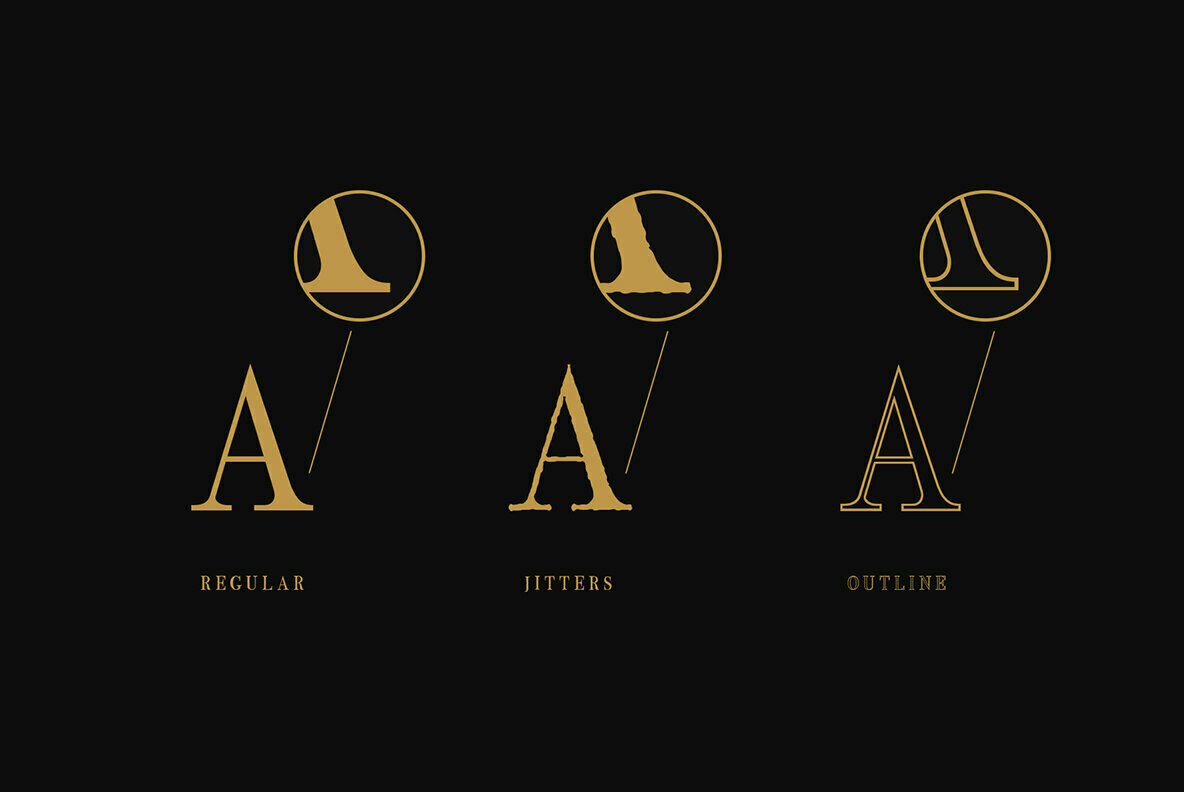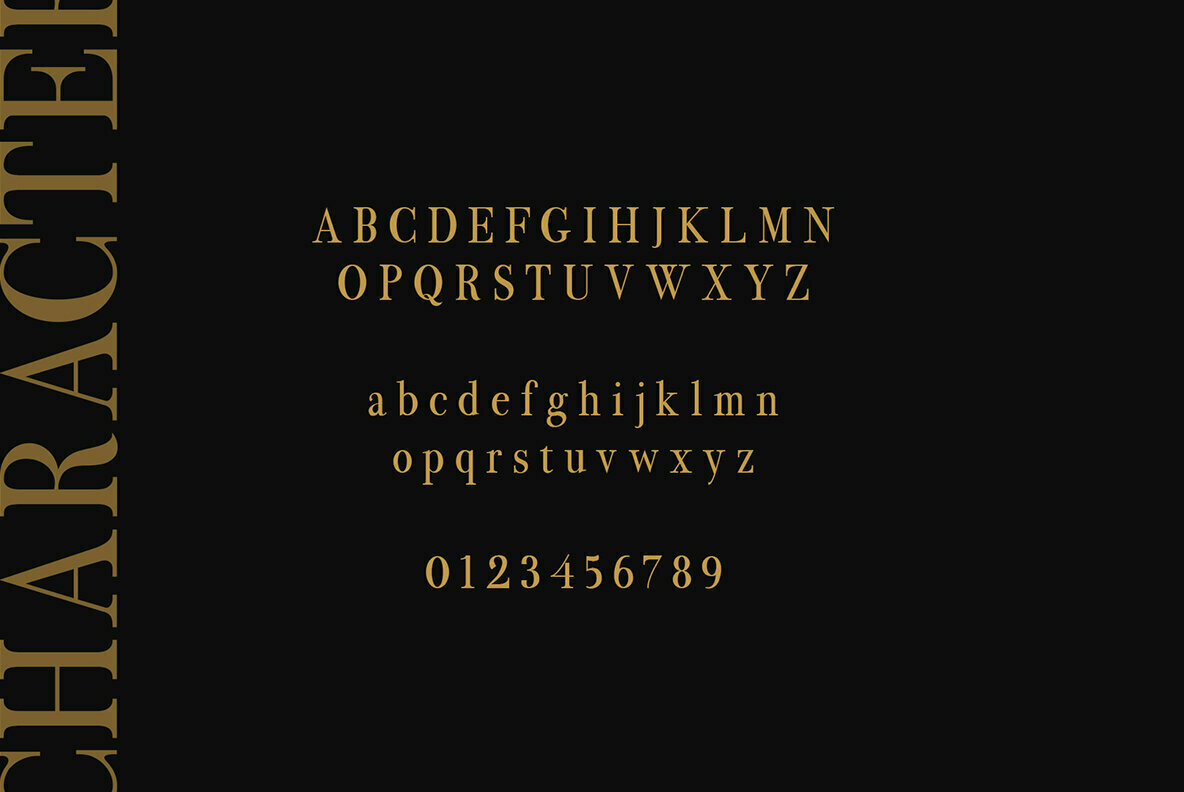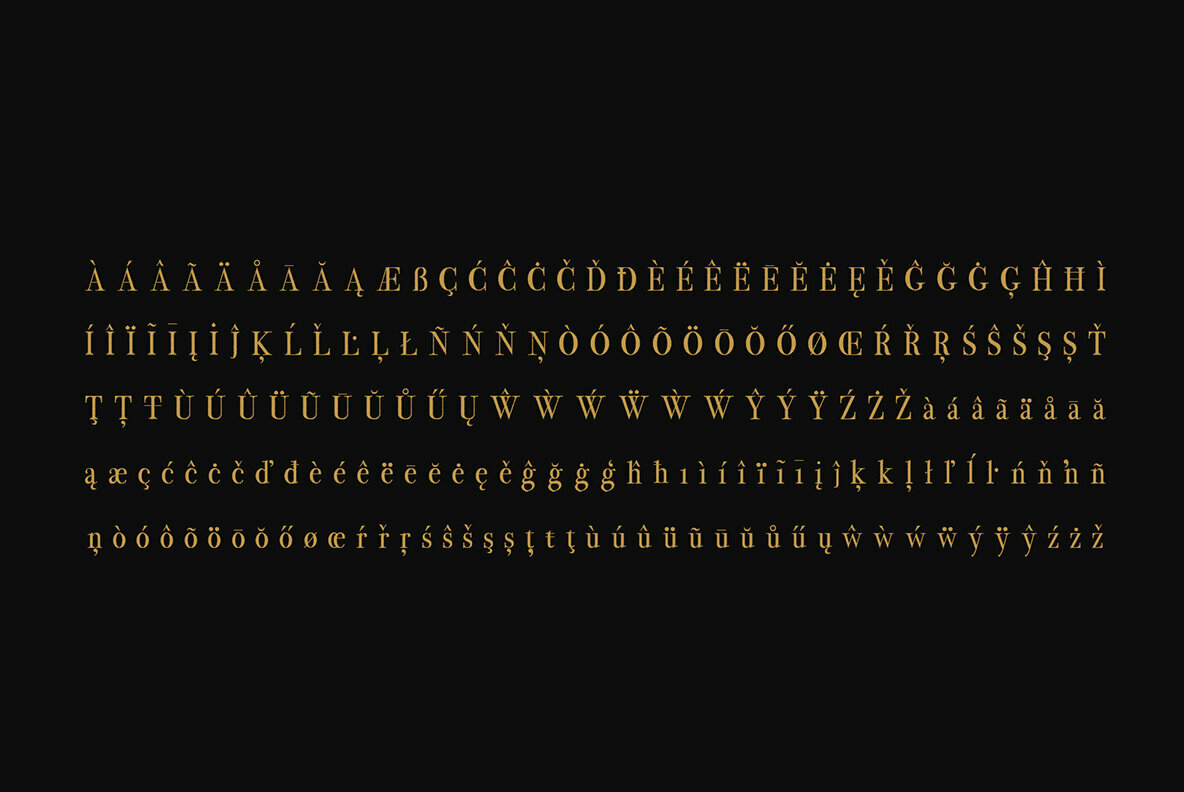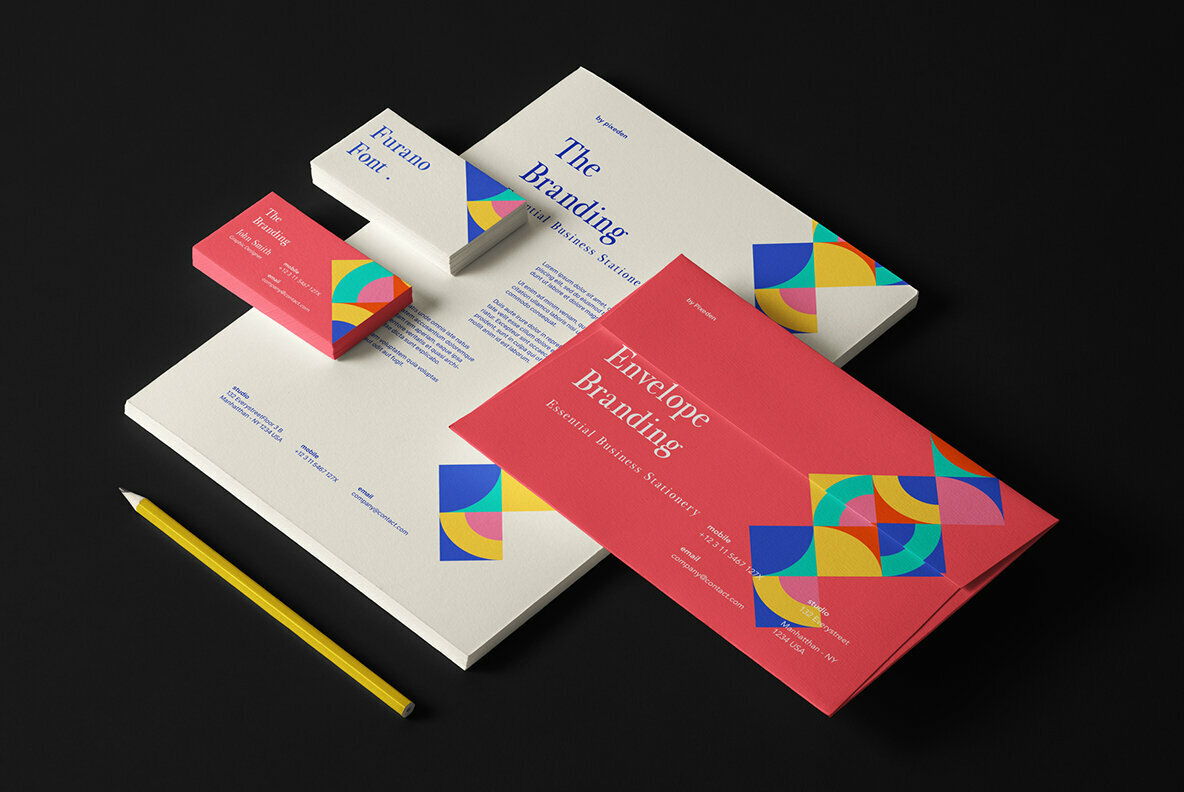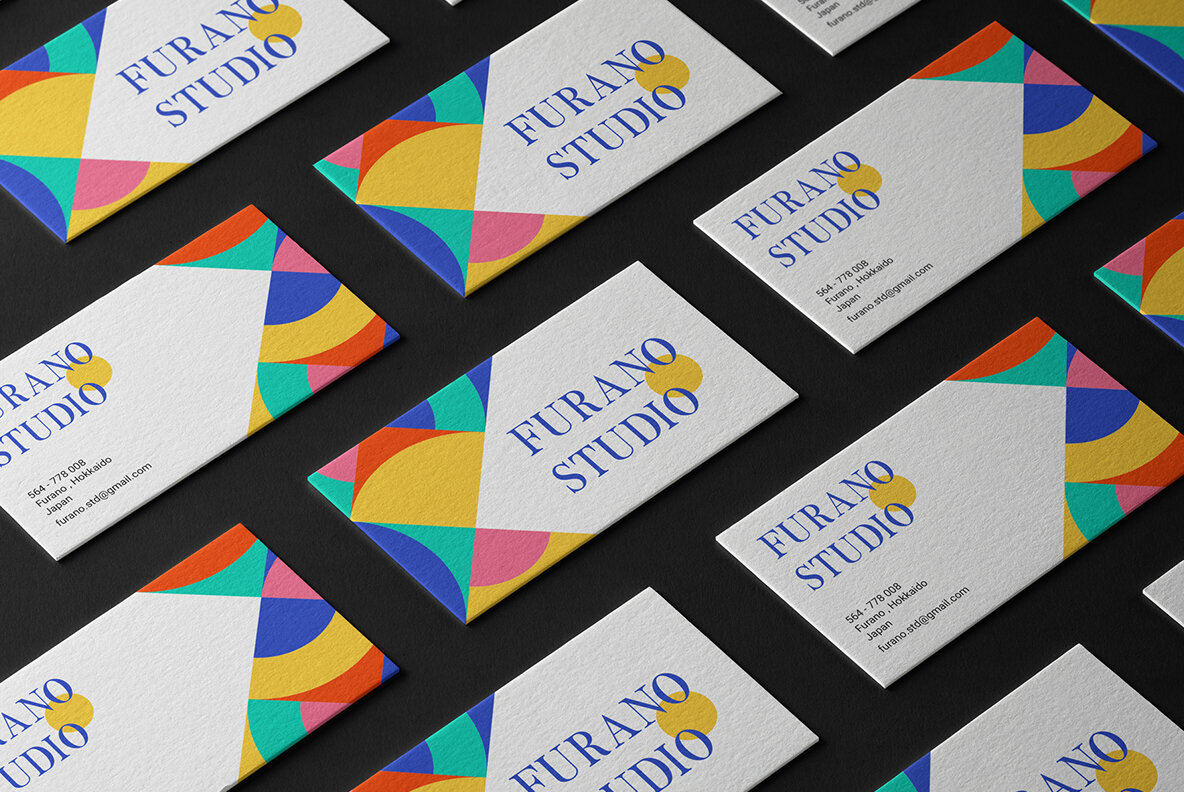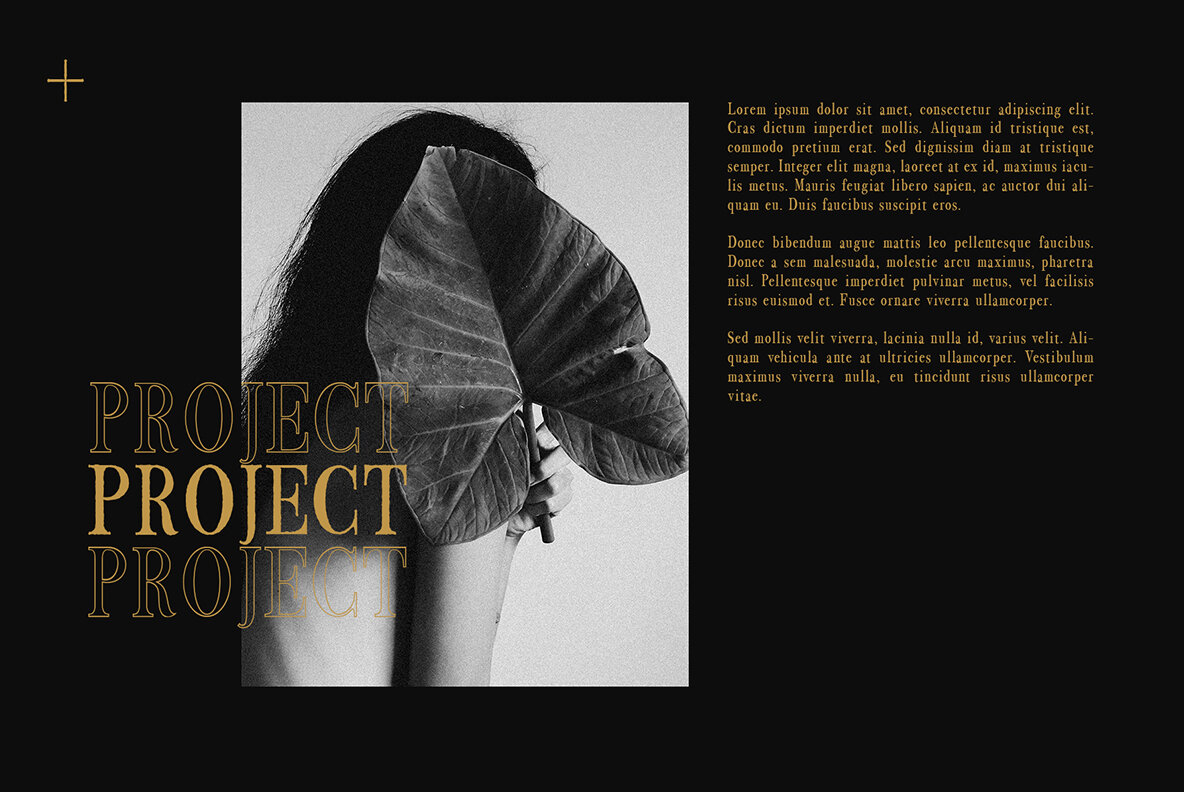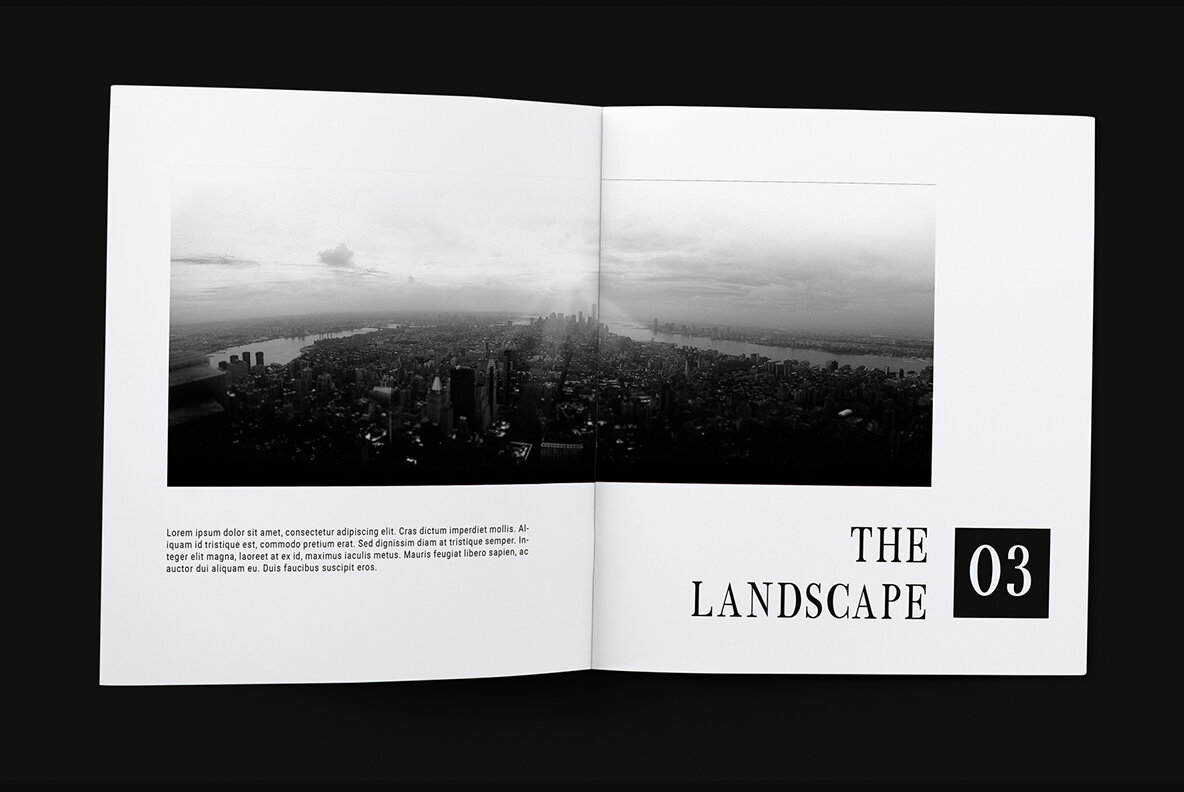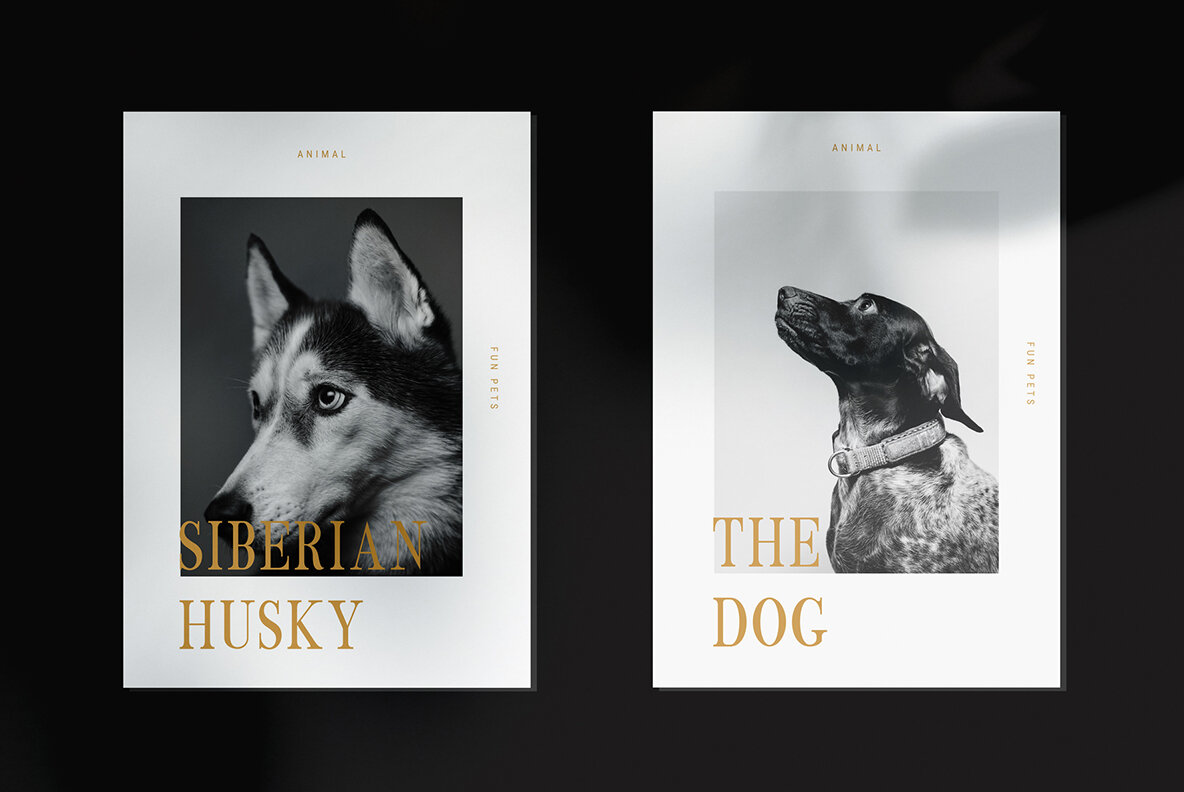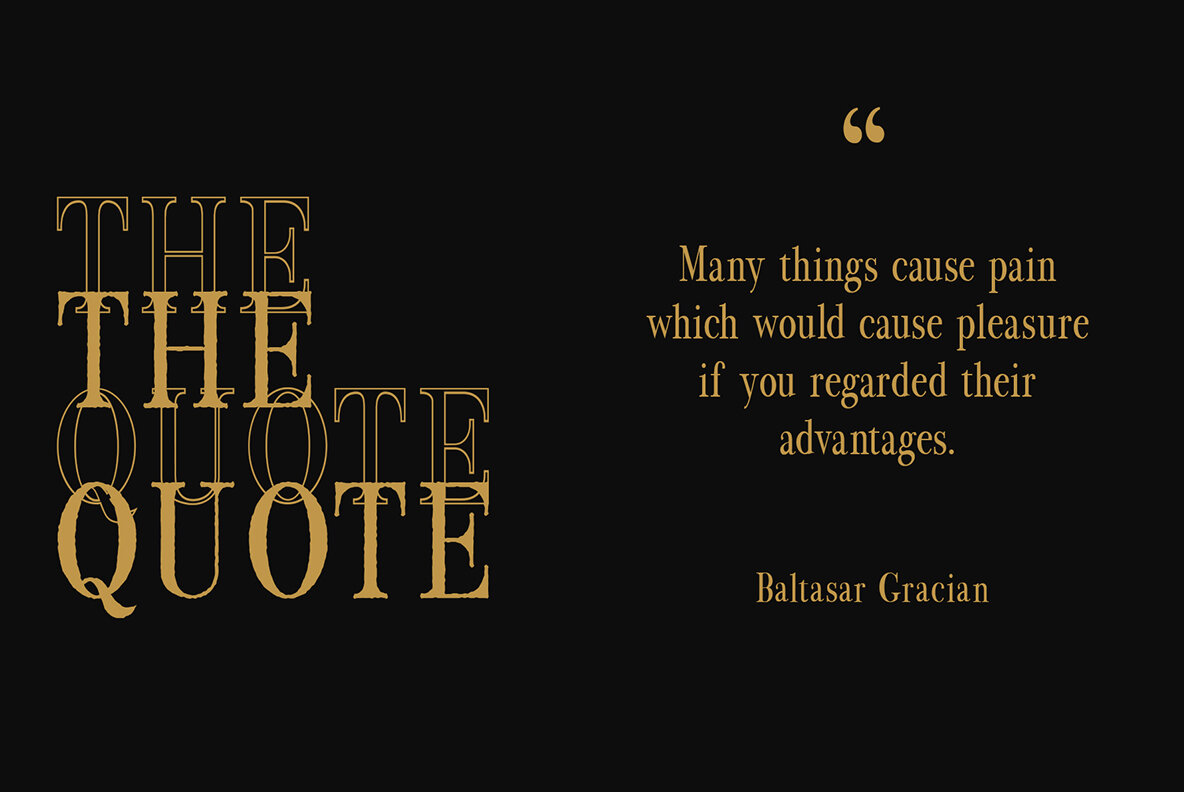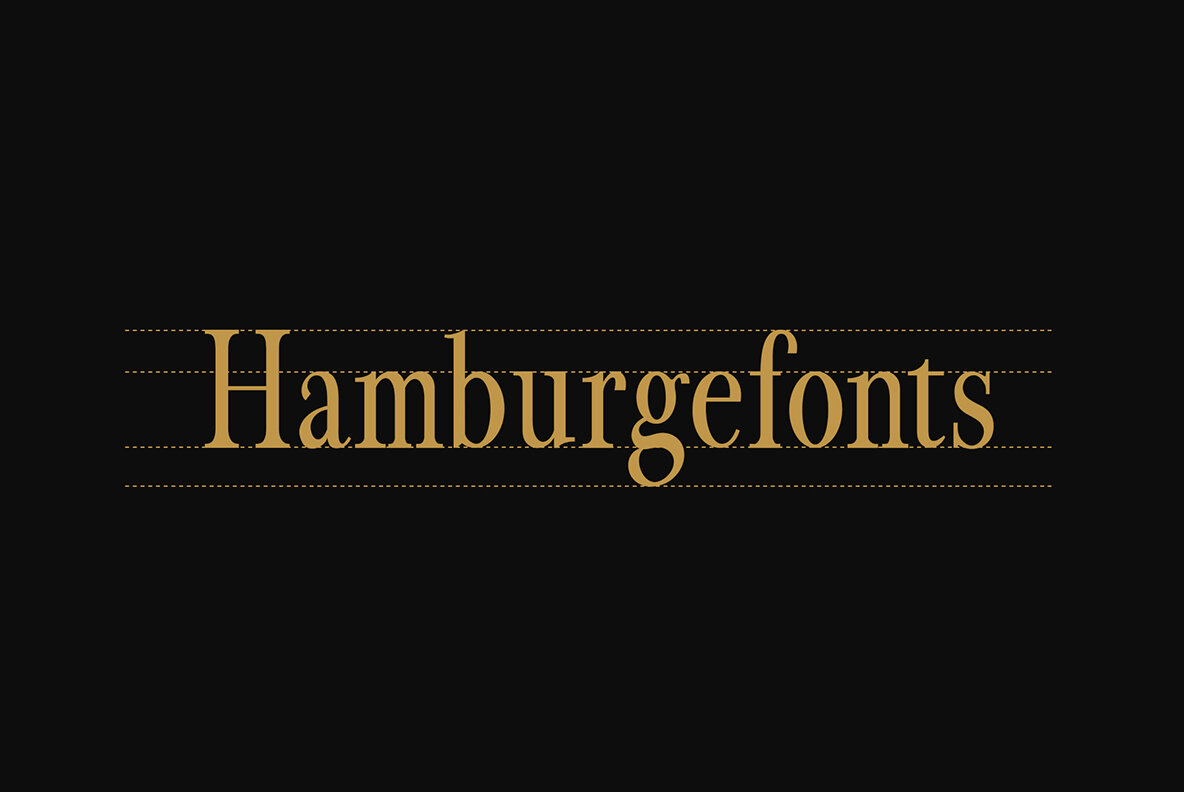
Furano Font
Step into the world of refined typography with Furano, a serif font that marries elegance with simplicity. Drawing inspiration from classic font design, Furano embodies a modern vintage aesthetic that is perfect for diverse graphic design projects. With three distinctive styles—regular, jittler, and outline—Furano offers versatility with its 390 characters. It ensures seamless creativity with features like ligatures and support for multiple languages, making it suitable for a myriad of applications from branding and logo creation to posters and cards.Furano: Elegant Serif with Modern Vintage Flair